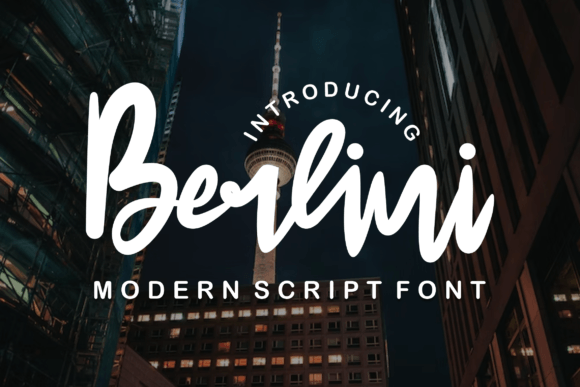
The Beauty of Berlini Font: Elevate Your Designs with Elegance
I’ll never forget the time I was working on a wedding invitation project, and my client asked for a font that exuded elegance and sophistication. I scoured the internet, tried out countless fonts, but nothing seemed quite right. That was until I stumbled upon Berlini Font. This stunning bold handwritten font has been a game-changer for me, and I’m excited to share its beauty with you. ✨
A Personal Review of Berlini Font
• ✨ Beautiful, classy, elegant, and modern – Berlini Font embodies all these qualities, making it perfect for a wide range of projects.
• ✅ Versatile – From signature and stationery to logos, wedding invitations, and website headers, this font adapts seamlessly.
• 💫 Unique character – The handwritten touch adds a personal feel to any design, setting it apart from more traditional fonts.
While Berlini Font is incredibly versatile, there are a few things to keep in mind:
• ⚠️ Legibility at small sizes – Like many script fonts, Berlini can be tricky to read at very small sizes. It’s best used at larger sizes where its beauty can shine.
• 🤔 Pairing with other fonts – Due to its bold and elegant nature, it’s essential to choose complementary fonts that don’t compete with Berlini.
The Story Behind Berlini Font
Berlini Font was inspired by the beautiful streets of Berlin, where modernity meets history. The designer aimed to capture the essence of the city – elegant, bold, and full of character. The result is a font that feels both contemporary and timeless.
Q: What makes Berlini Font unique?
A: Berlini Font’s uniqueness lies in its perfect blend of elegance, boldness, and a handwritten feel, making it suitable for a wide range of projects.
Q: Is Berlini Font suitable for body text?
A: While Berlini is stunning, it’s more suited for headlines and short paragraphs due to its script nature. For longer body text, a more traditional font might be more readable.
Q: Can I use Berlini Font for my branding?
A: Absolutely! Berlini Font’s unique and elegant style makes it perfect for branding, especially if you’re looking to add a touch of sophistication and personality to your brand identity.